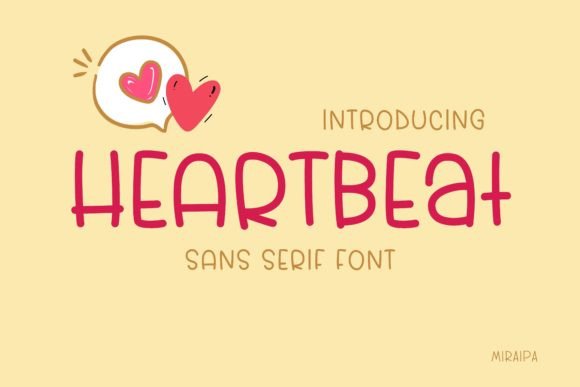
Immerse yourself in the world of love, laughter, and heartfelt warmth with the Heartbeat Font - a charming sans serif font, delicately penned to capture the essence of handwritten bliss. Designed by the talented miraipa, this font exudes a friendly charm that will add a touch of personality to any project you embark on.
Whether you're crafting a personal diary, planning a future-filled school year, or designing invitations for your upcoming celebration, Heartbeat Font is the perfect companion. Its heartwarming style adds a touch of joy to wedding vows, party décor, and Christmas greetings. Let your creativity soar as you create eye-catching posters, engaging blog posts, or unique clothing designs with this versatile font.
With its wide range of applications, Heartbeat Font is a must-have for any creative toolbox. Its gentle curves and playful strokes add a touch of whimsy to child-related designs, greeting cards, and social media posts. Whether you're a seasoned designer or just starting your creative journey, Heartbeat Font is the perfect choice to bring a smile to the faces of your audience.